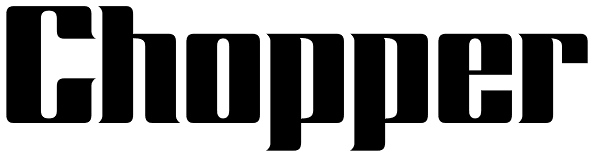
Chopper
In 1972, VGC released two typefaces by designer friends Dick Jensen and Harry Villhardt. Jensen’s was called Serpentine, and Villhardt’s was called Venture. Even though both faces had the same elements and a somewhat similar construct, one of them...